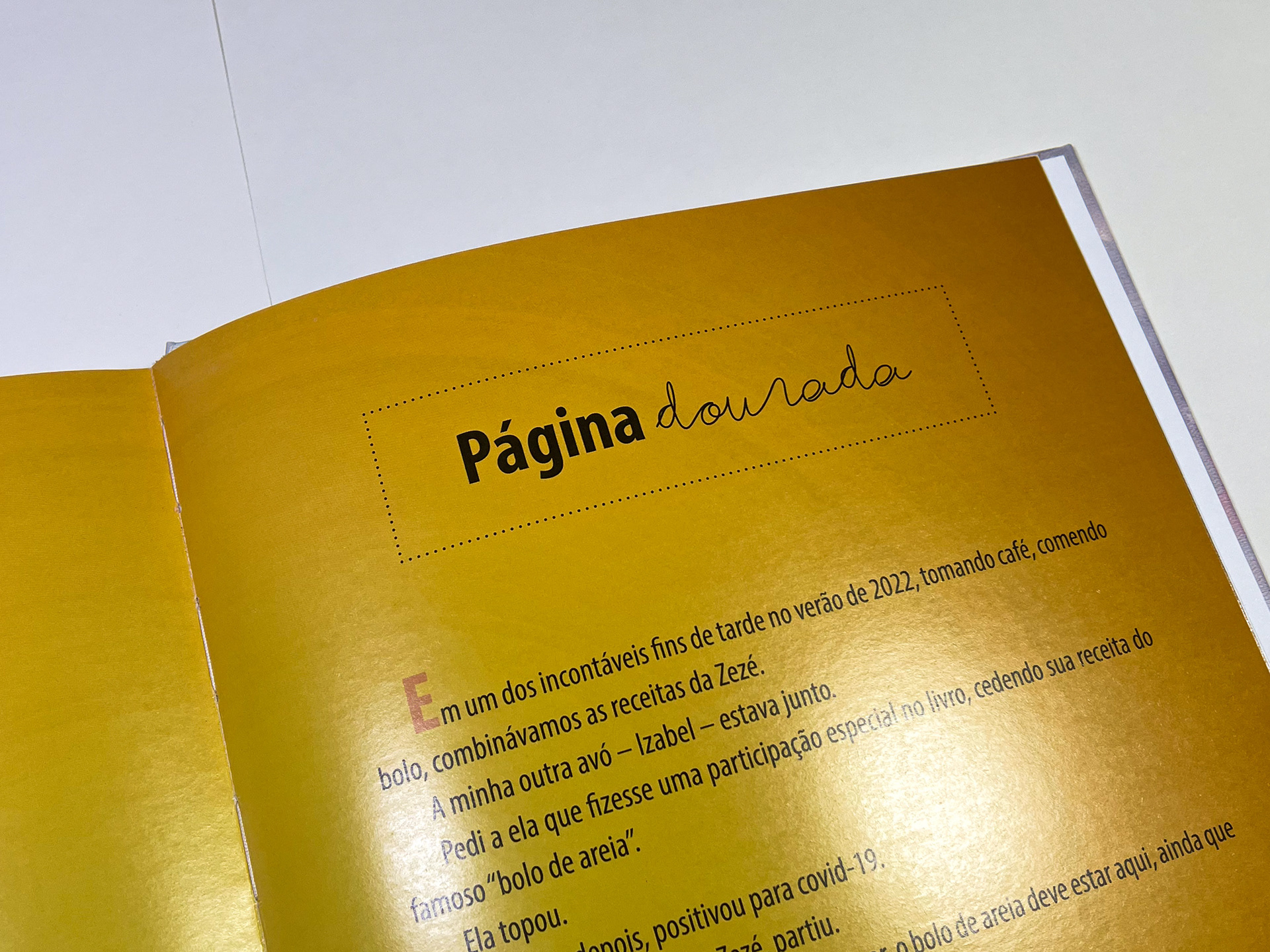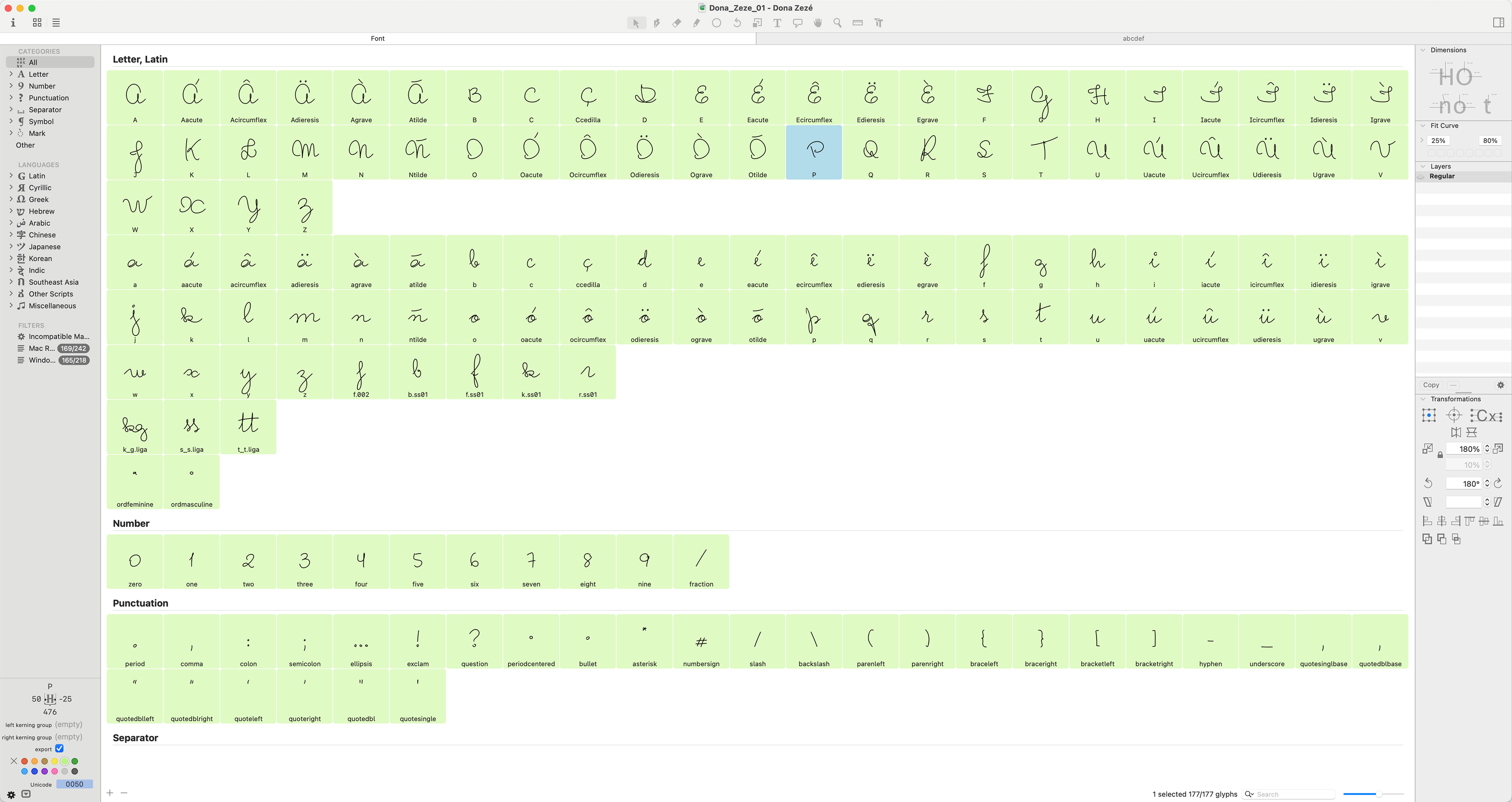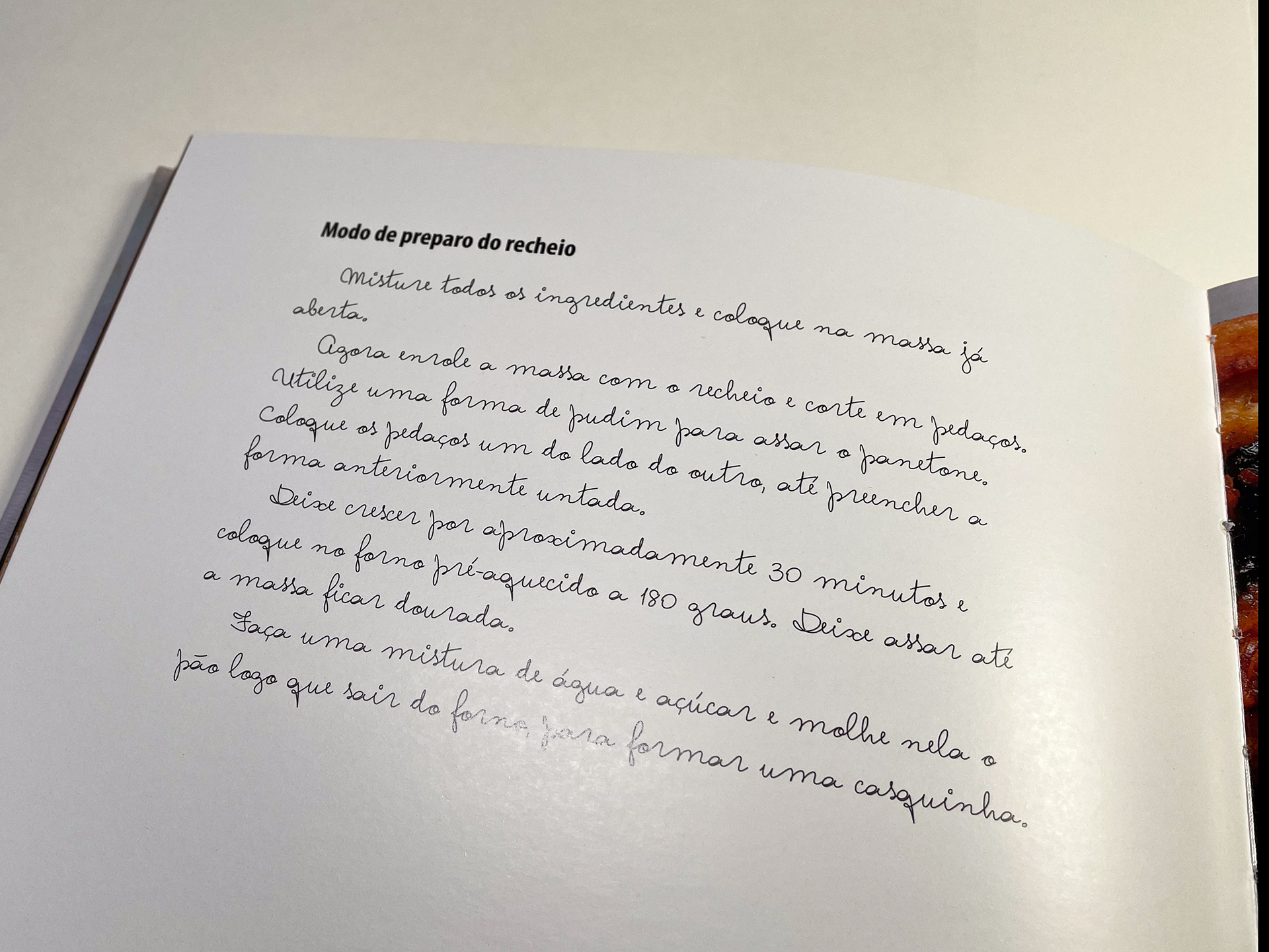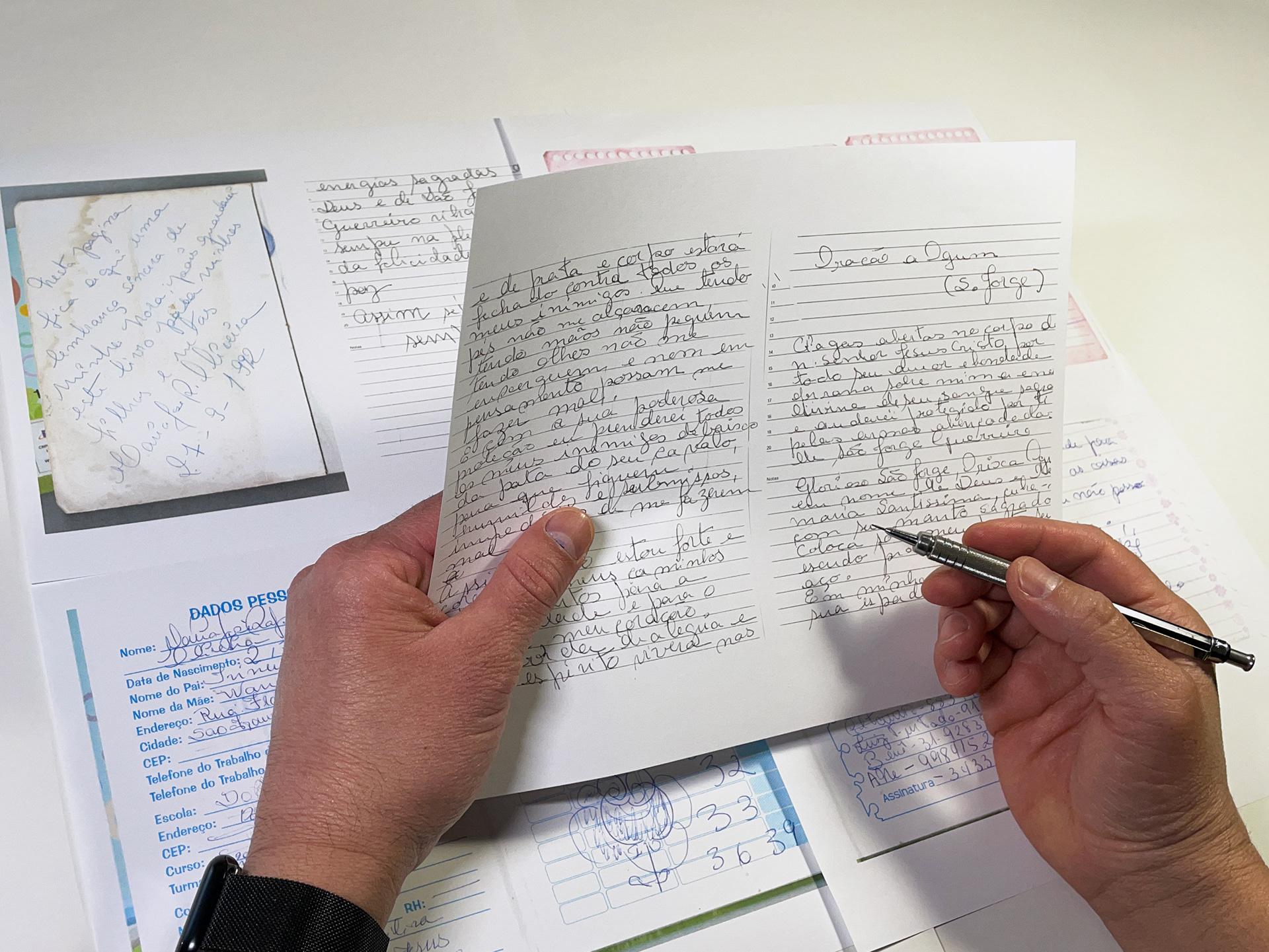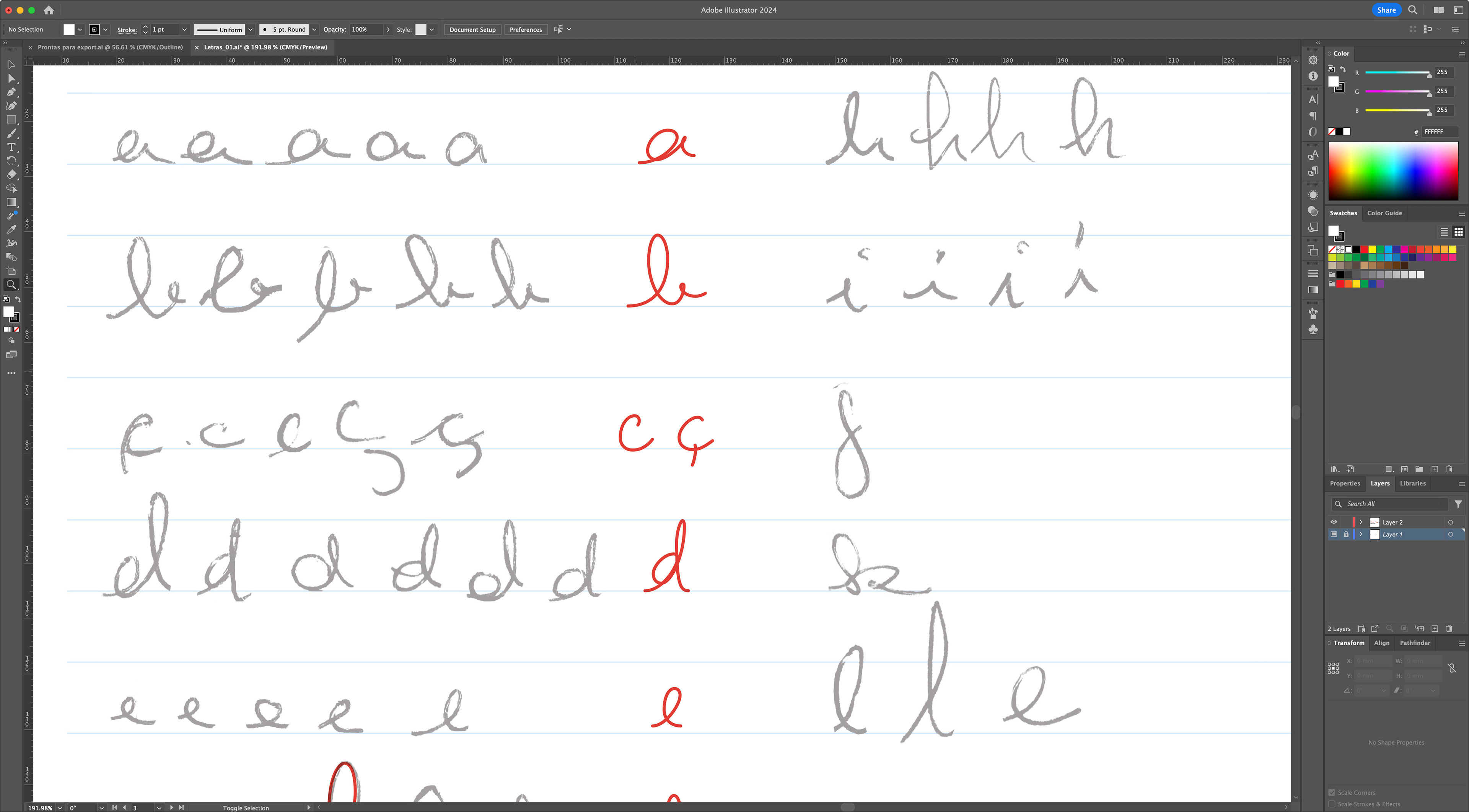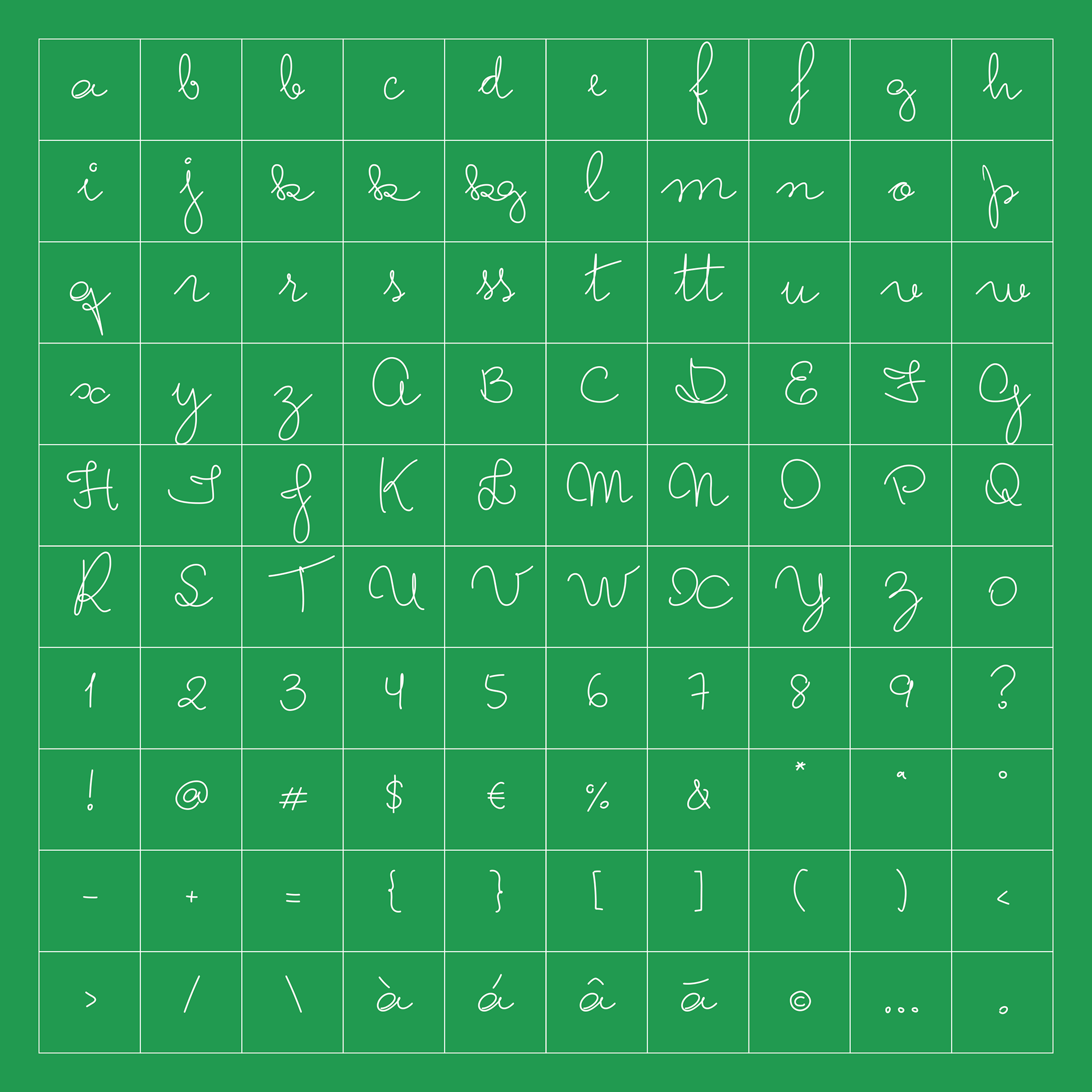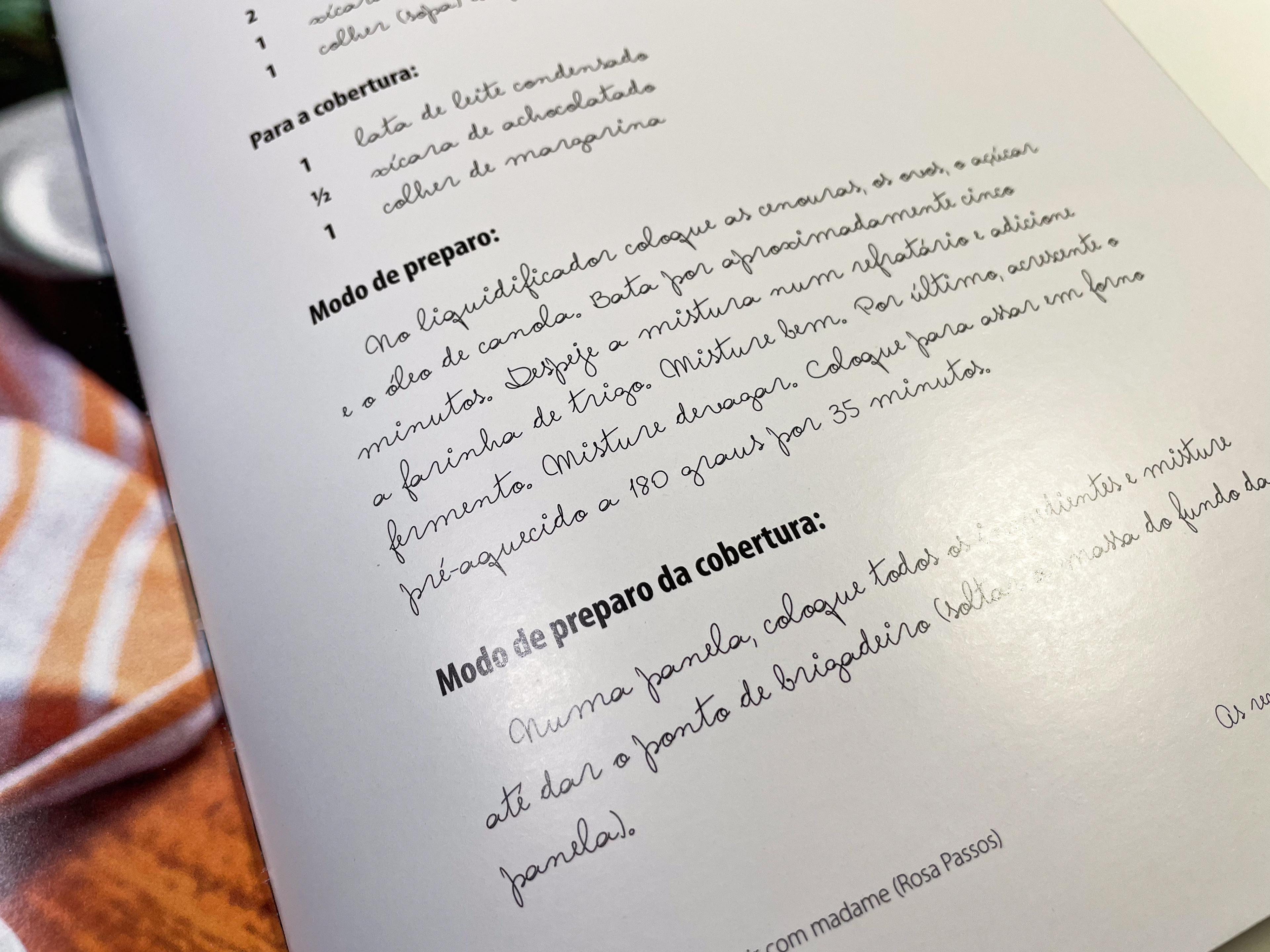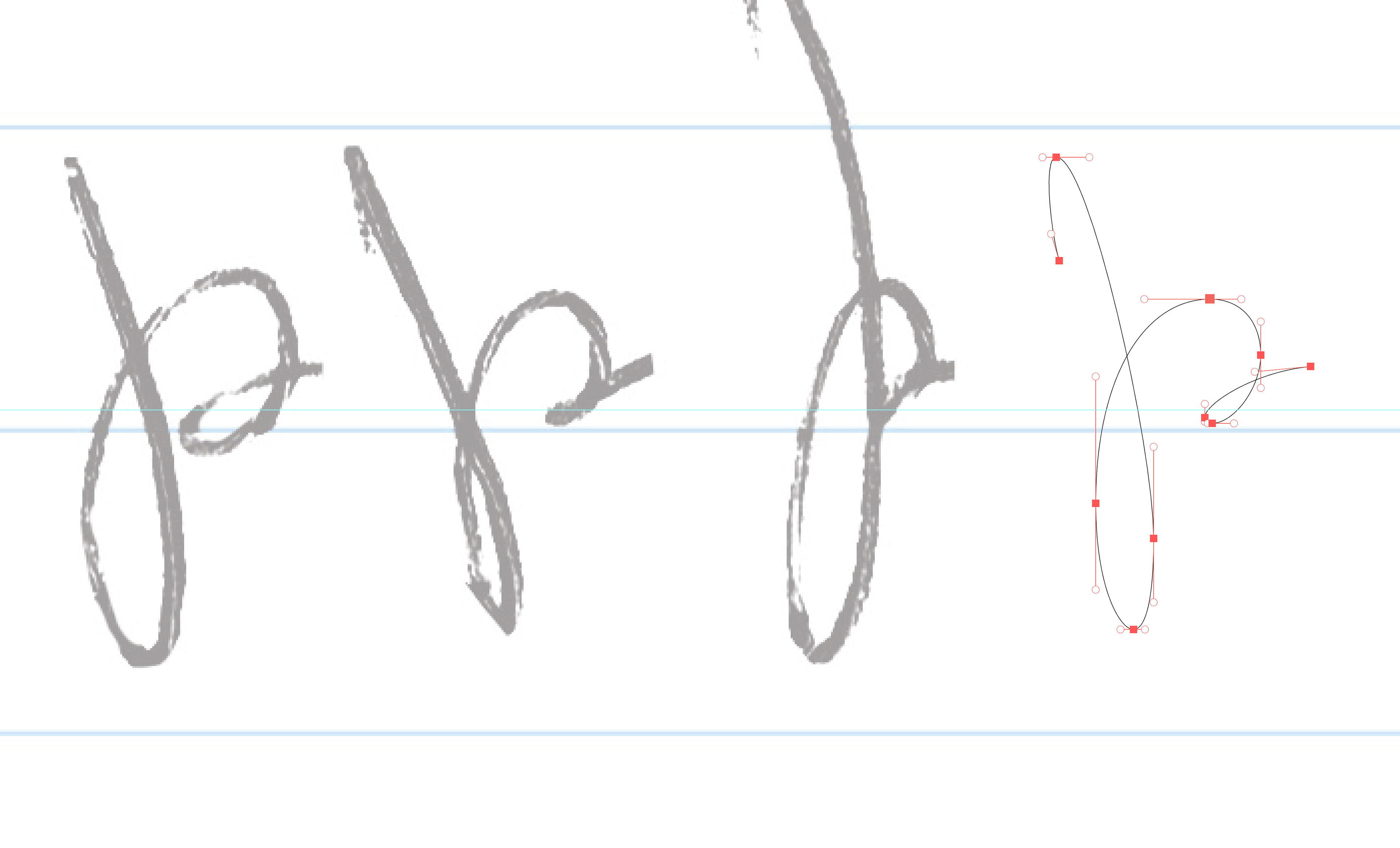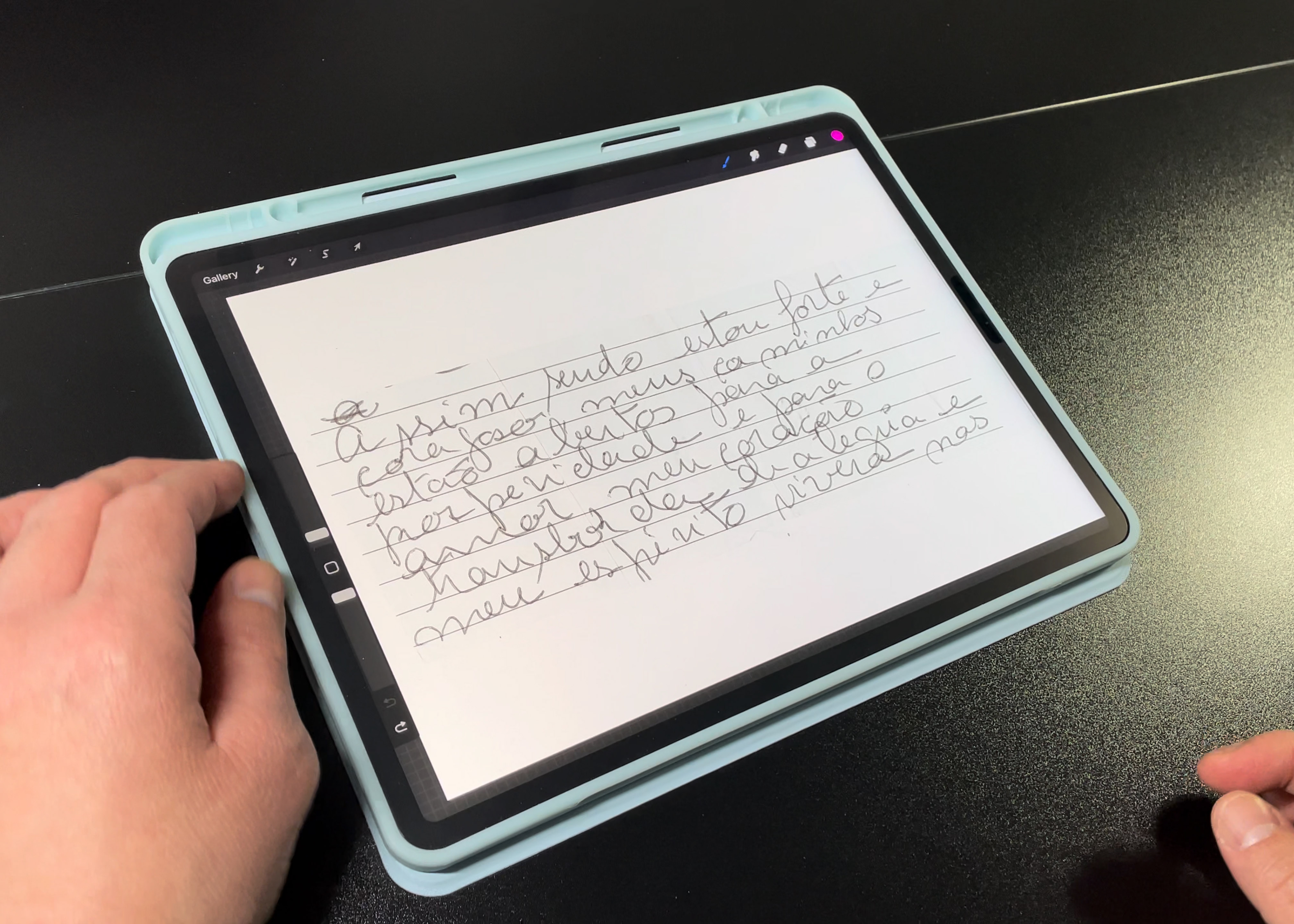
Dona Zezé Font
Custom Type
Mrs. Zezé was a very beloved grandmother and an excellent cook. Her dishes were so appreciated that, with her passing, her family decided to honor her with her own recipe book. However, for the tribute to be complete, it was decided that the recipes should be written in her handwriting, and that's the point where I joined the project: My challenge was to create a font that replicated Mrs. Zezé's handwriting, making it appear as if the book was written by her.
The family sent me notebooks and notes written by Zezé, which I carefully studied to discover the nuances of her writing, understand how she wrote each letter, and from there, design each character to simulate her handwriting. It needed to be a ready-to-use font, as it would be sent to other professionals responsible for the graphic design of the book. Although the font had only a basic set of 176 glyphs, it was a project I made with great care and affection to ensure that the font remained true to Mrs. Zezé's writing when used in the book.
The result was a wonderful book, where the care applied by the family and everyone involved in the project can be felt by all those who read its pages.
The family sent me notebooks and notes written by Zezé, which I carefully studied to discover the nuances of her writing, understand how she wrote each letter, and from there, design each character to simulate her handwriting. It needed to be a ready-to-use font, as it would be sent to other professionals responsible for the graphic design of the book. Although the font had only a basic set of 176 glyphs, it was a project I made with great care and affection to ensure that the font remained true to Mrs. Zezé's writing when used in the book.
The result was a wonderful book, where the care applied by the family and everyone involved in the project can be felt by all those who read its pages.
Mrs. Zezé is now immortalized in these pages.
Dona Zezé era uma avó muito querida e uma excelente cozinheira. Seus pratos eram tão apreciados que, com sua partida, sua família resolveu homenageá-la com o seu próprio livro de receitas. Mas para a homenagem ser completa, foi decidido que as receitas deveriam ser escritas com sua própria letra, e foi aí que eu entrei no projeto: O meu desafio era criar uma fonte que reproduzisse a letra da Dona Zezé, para parecer que o livro foi escrito por ela.
A família me enviou cadernos e bilhetes escritos pela Zezé, os quais eu estudei atenciosamente para descobrir os ductos de sua escrita, entender como ela escrevia e a partir daí desenhar cada caractere de modo que simulasse a letra dela. Precisava ser uma fonte pronta para uso, pois ela seria enviada a outros profissionais que estavam encarregados do projeto gráfico do livro. Embora a fonte tenha somente um set básico de 176 grifos, foi um projeto que fiz com muito carinho e cuidado para que a fonte fosse fiel à escrita da Dona Zezé na hora de ser utilizada no livro.
O resultado foi um livro maravilhoso, cujo o carinho aplicado pela família e todos que participaram do projeto pode ser sentido por todos aqueles que lerem suas páginas.
A Dona Zezé agora está eternizada nessas páginas.
A família me enviou cadernos e bilhetes escritos pela Zezé, os quais eu estudei atenciosamente para descobrir os ductos de sua escrita, entender como ela escrevia e a partir daí desenhar cada caractere de modo que simulasse a letra dela. Precisava ser uma fonte pronta para uso, pois ela seria enviada a outros profissionais que estavam encarregados do projeto gráfico do livro. Embora a fonte tenha somente um set básico de 176 grifos, foi um projeto que fiz com muito carinho e cuidado para que a fonte fosse fiel à escrita da Dona Zezé na hora de ser utilizada no livro.
O resultado foi um livro maravilhoso, cujo o carinho aplicado pela família e todos que participaram do projeto pode ser sentido por todos aqueles que lerem suas páginas.
A Dona Zezé agora está eternizada nessas páginas.